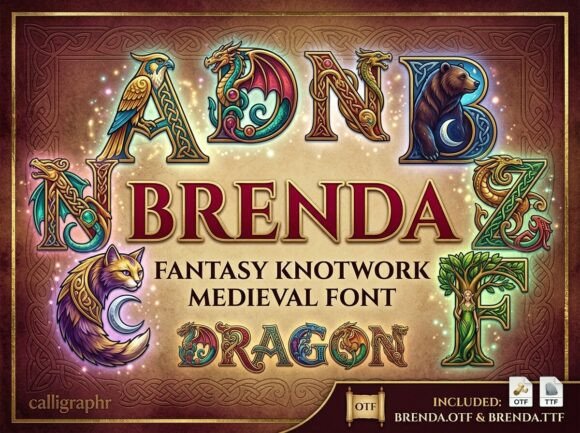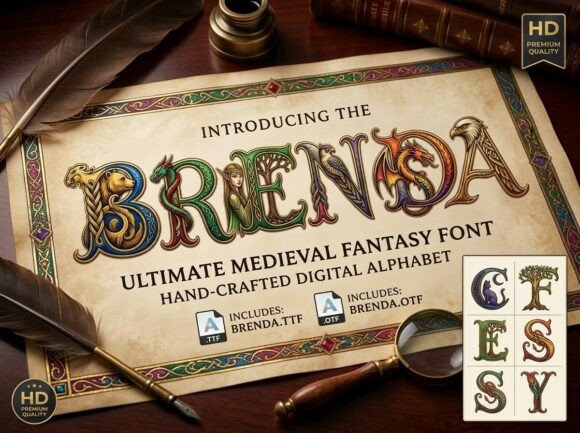
Introducing Brenda Font: The Ultimate Decorative Display Font for Creative Projects
In the world of typography, a good font can make all the difference in a design project. If you’re looking for a font that can add a touch of uniqueness and creativity to your work, look no further than Brenda Font. This stunning decorative display font is designed to be the center of attention, featuring unique artistic elements and a strong visual personality that sets it apart from the ordinary.
What Makes Brenda Font Stand Out
Brenda Font is a game-changer for creators who want to break away from the crowd. Its intricate details and creative letterforms make it perfect for high-impact designs where the typography needs to do the talking. Whether you’re designing a modern poster, a unique brand identity, or eye-catching social media content, this font adds an instant “wow” factor to any project.
Brenda Font is versatile enough to be used in a variety of design projects, including:
- Poster Design: Create headlines that people can’t look away from. With Brenda Font, you can create bold and eye-catching posters that grab attention and leave a lasting impression.
- Branding & Logos: Build a unique identity for creative businesses. This font is perfect for creating artistic logos that reflect the personality and values of your brand.
- Apparel & Merch: Perfect for T-shirts, hoodies, and tote bag designs. Brenda Font adds a touch of creativity and style to any apparel or merchandise design.
- Social Media Content: Create eye-catching social media content that stands out from the crowd. Use Brenda Font to create bold and engaging graphics that drive engagement and conversation.
Key Features of Brenda Font
So, what makes Brenda Font so special? Here are some of its key features:
- Unique Artistic Elements: Brenda Font features unique artistic elements that set it apart from other fonts.
- Strong Visual Personality: This font has a strong visual personality that adds a touch of creativity and style to any design project.
- Intricate Details: Brenda Font features intricate details that make it perfect for high-impact designs.
- Creative Letterforms: The font’s creative letterforms add a touch of uniqueness and personality to any design project.
- Professional and Polished Finish: Despite its creative and artistic features, Brenda Font maintains a professional and polished finish that’s perfect for a variety of design projects.
Why Choose Brenda Font?
So, why choose Brenda Font for your design projects? Here are just a few reasons:
- Adds a Touch of Creativity: Brenda Font adds a touch of creativity and style to any design project.
- Perfect for Creative Projects: This font is perfect for creative projects that require a unique and eye-catching typography.
- Versatile: Brenda Font is versatile enough to be used in a variety of design projects, from posters and logos to social media content and apparel.
- High-Quality: This font is designed to high-quality standards, ensuring that it looks great in any design project.
In conclusion, Brenda Font is a stunning decorative display font that’s perfect for creative projects. With its unique artistic elements, strong visual personality, and intricate details, this font is sure to add a touch of creativity and style to any design project. Whether you’re designing a modern poster, a unique brand identity, or eye-catching social media content, Brenda Font is the perfect choice. So why settle for ordinary typography when you can make a statement with Brenda Font?